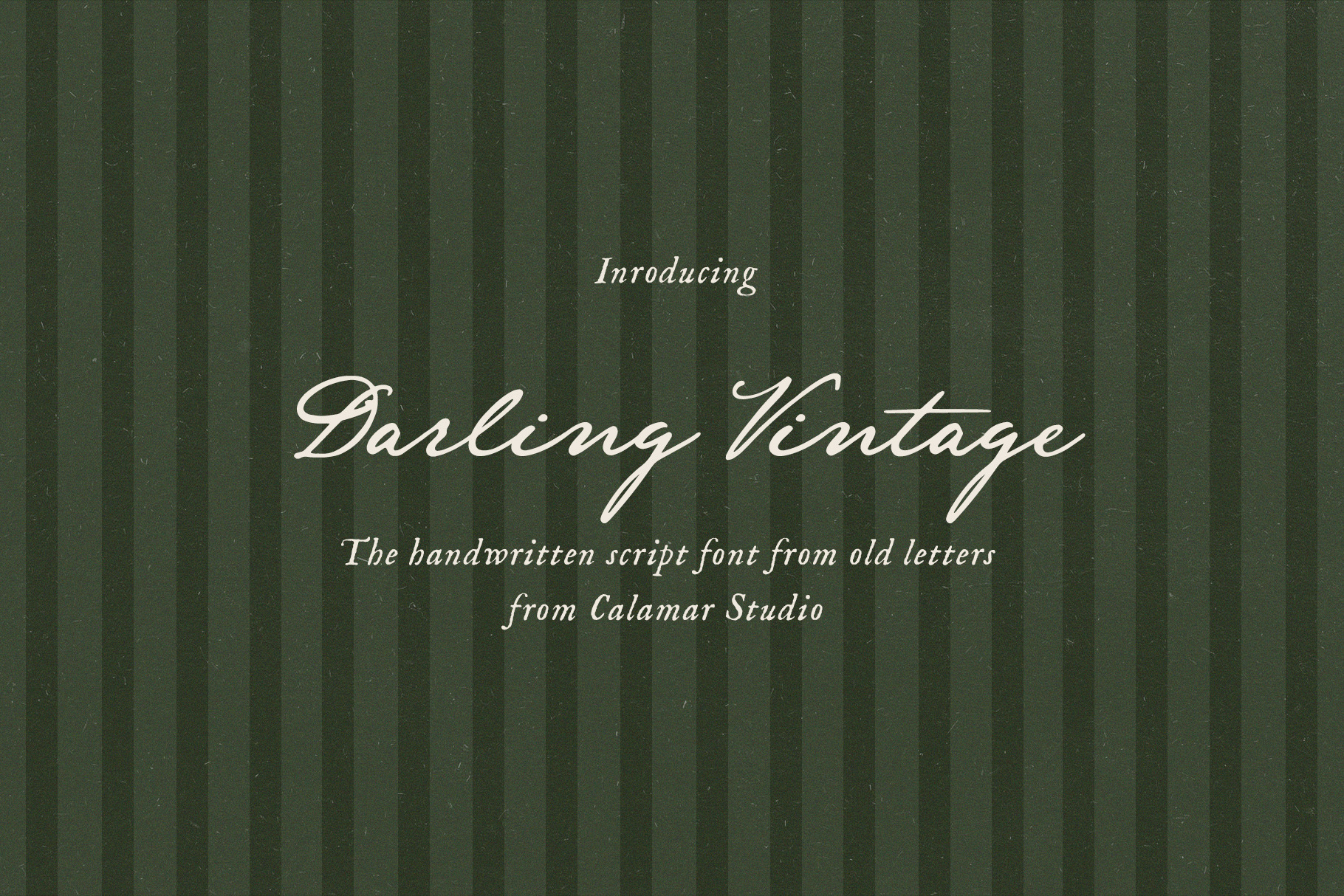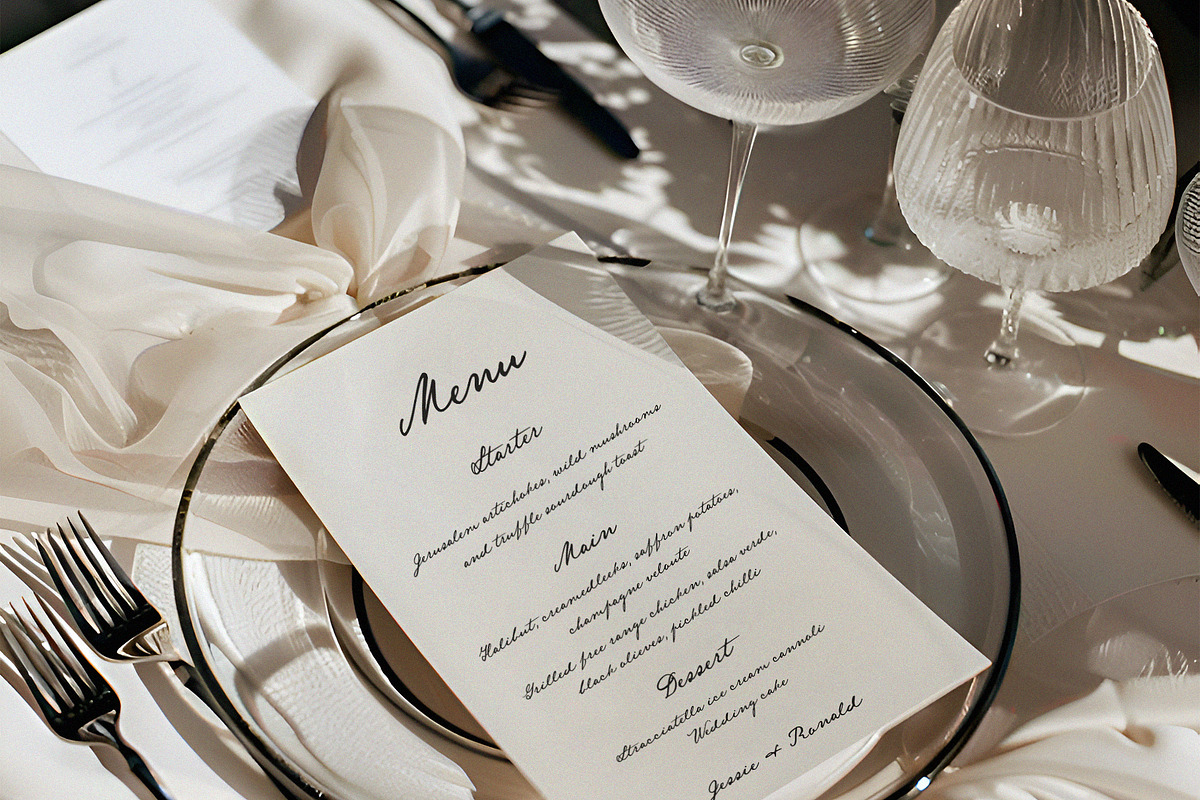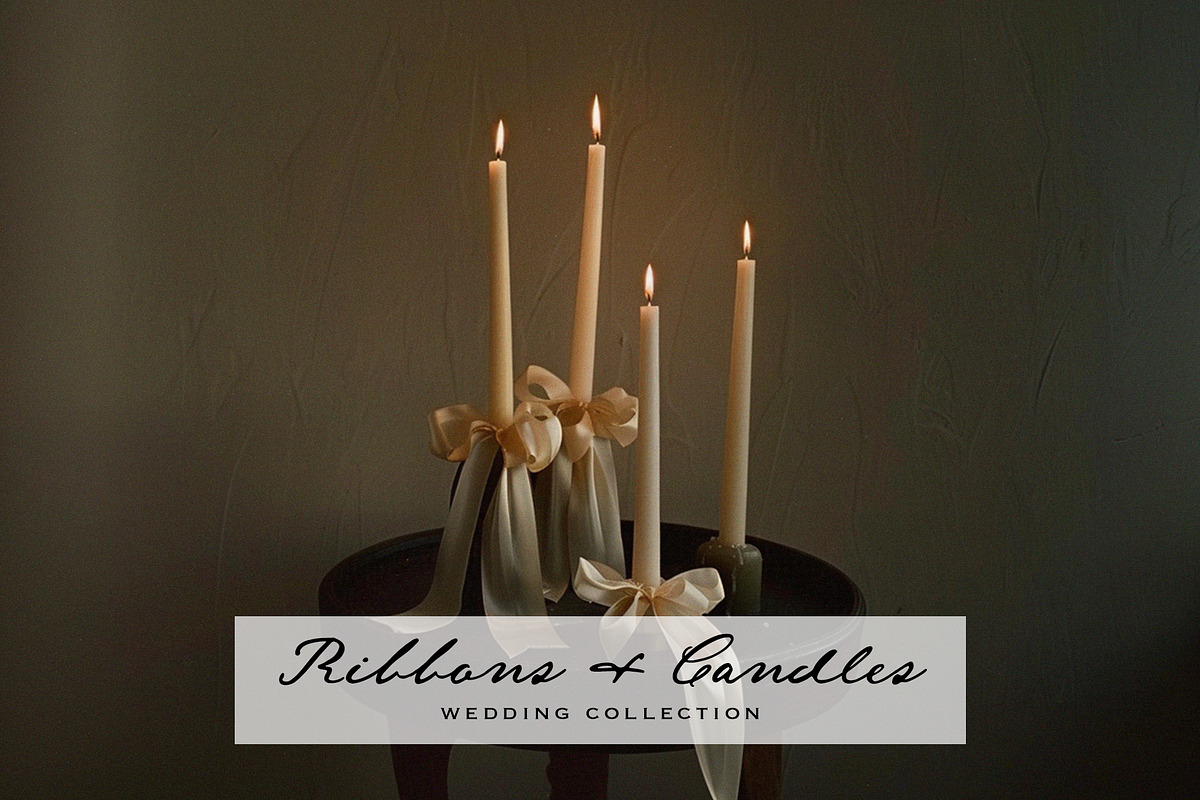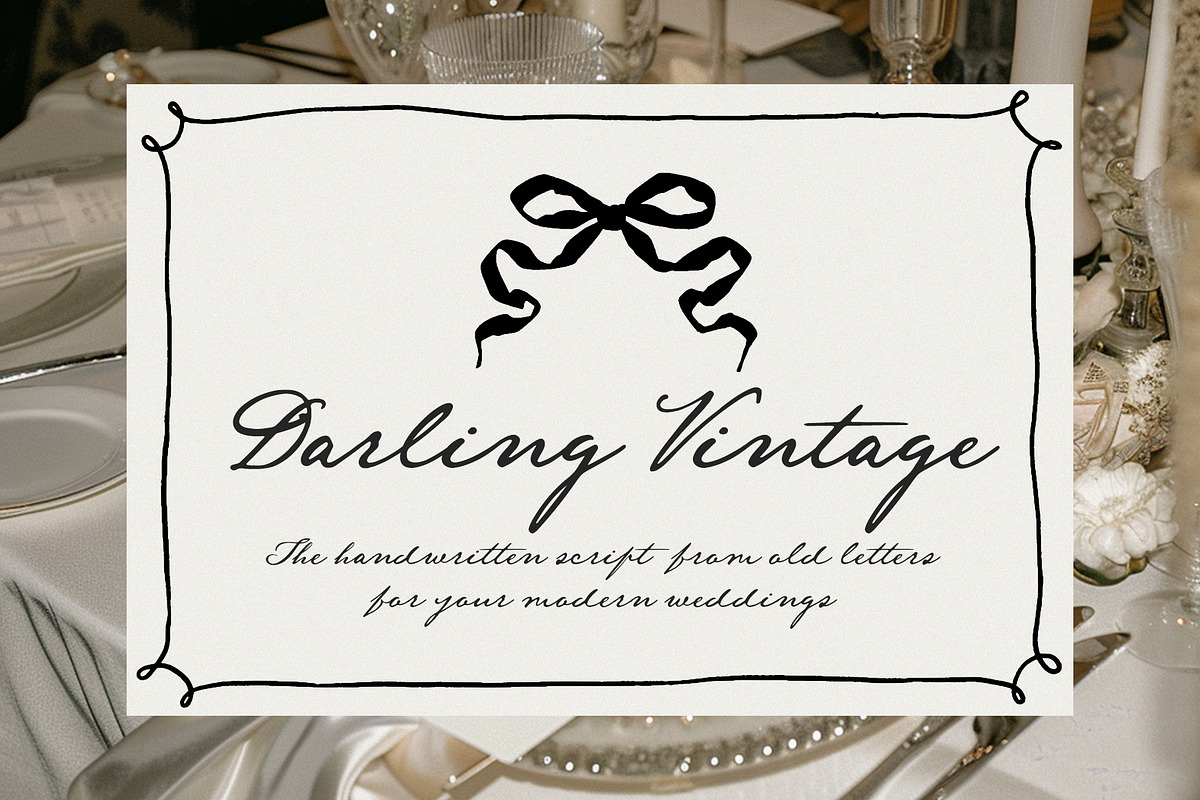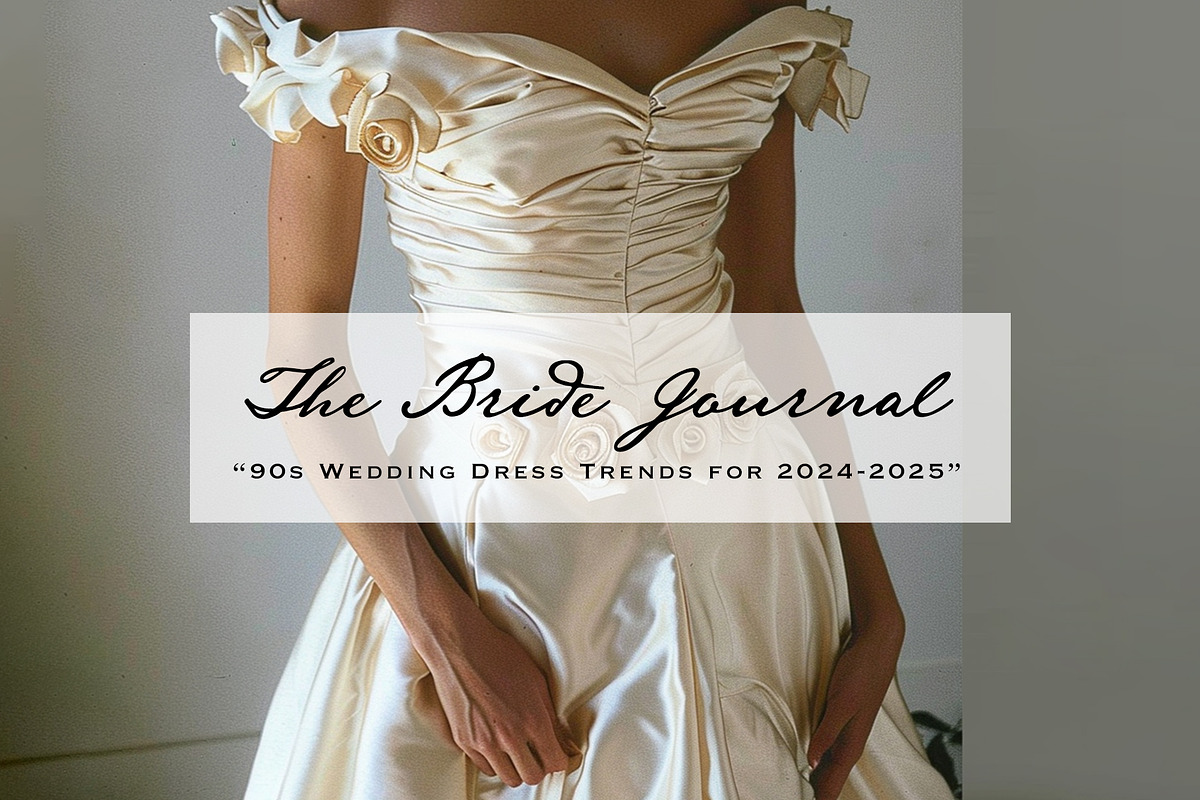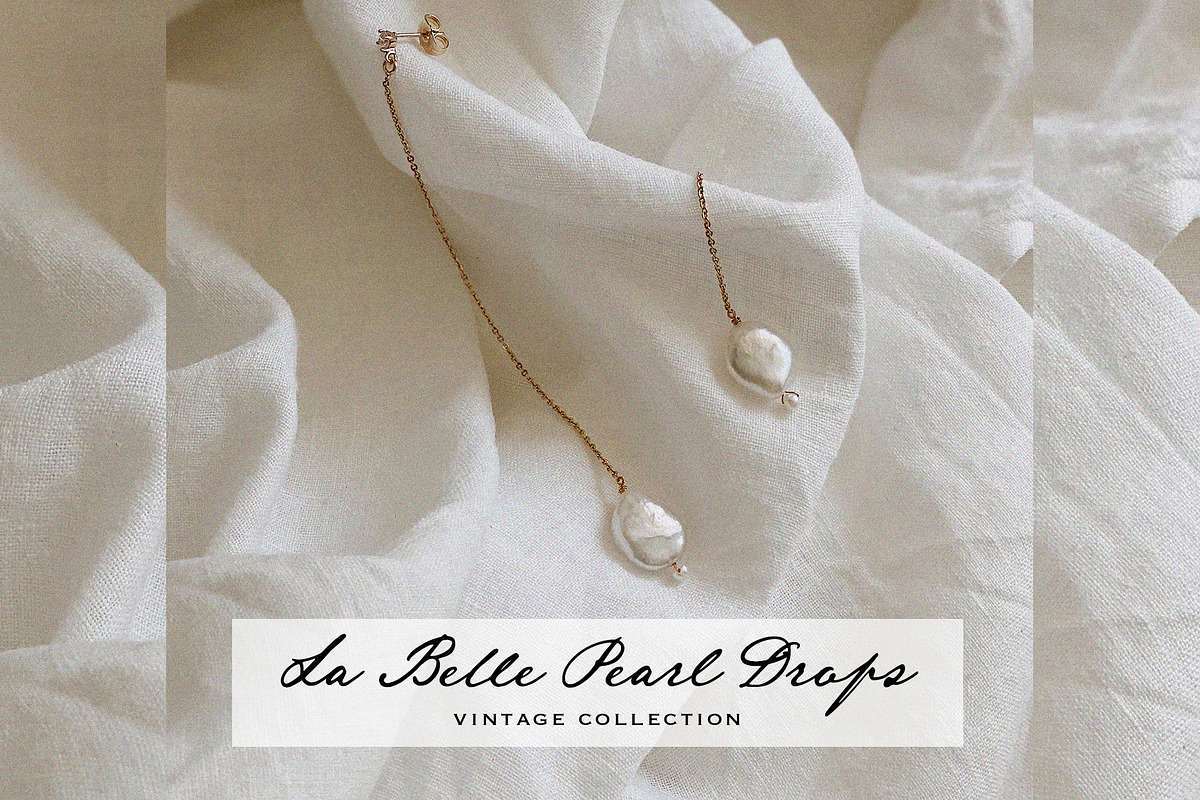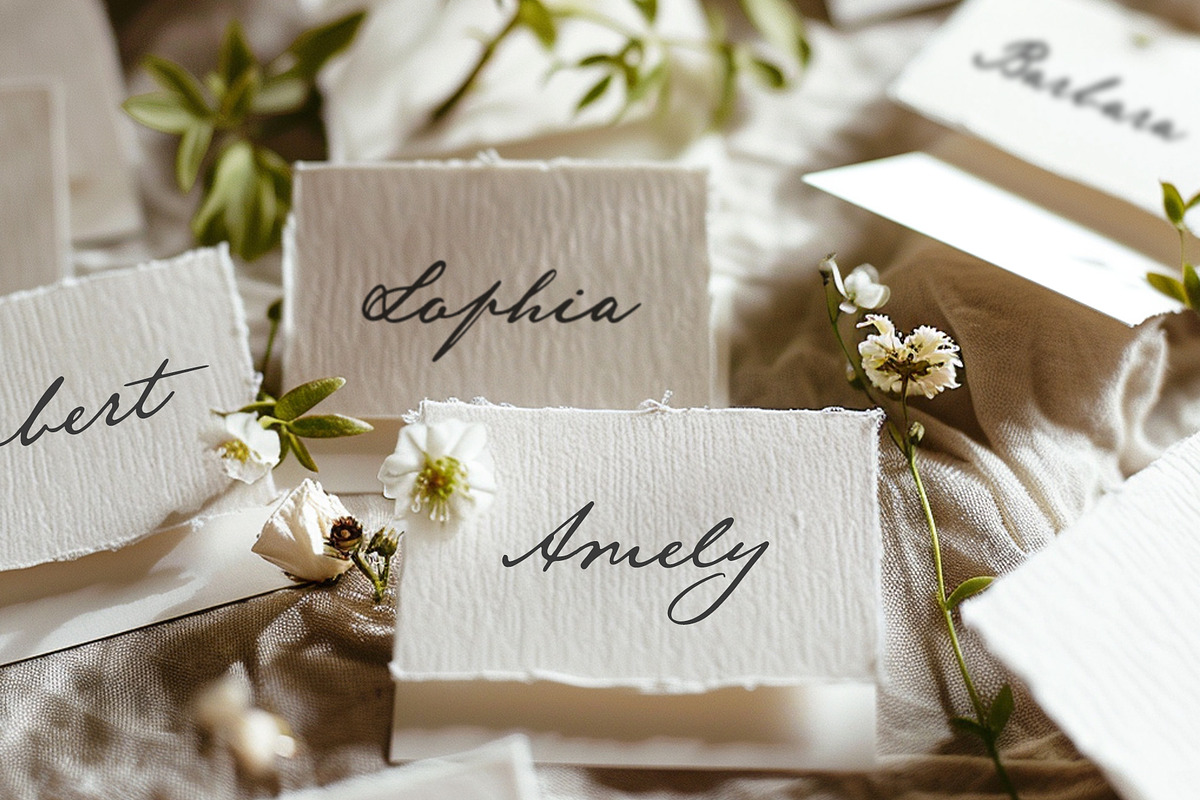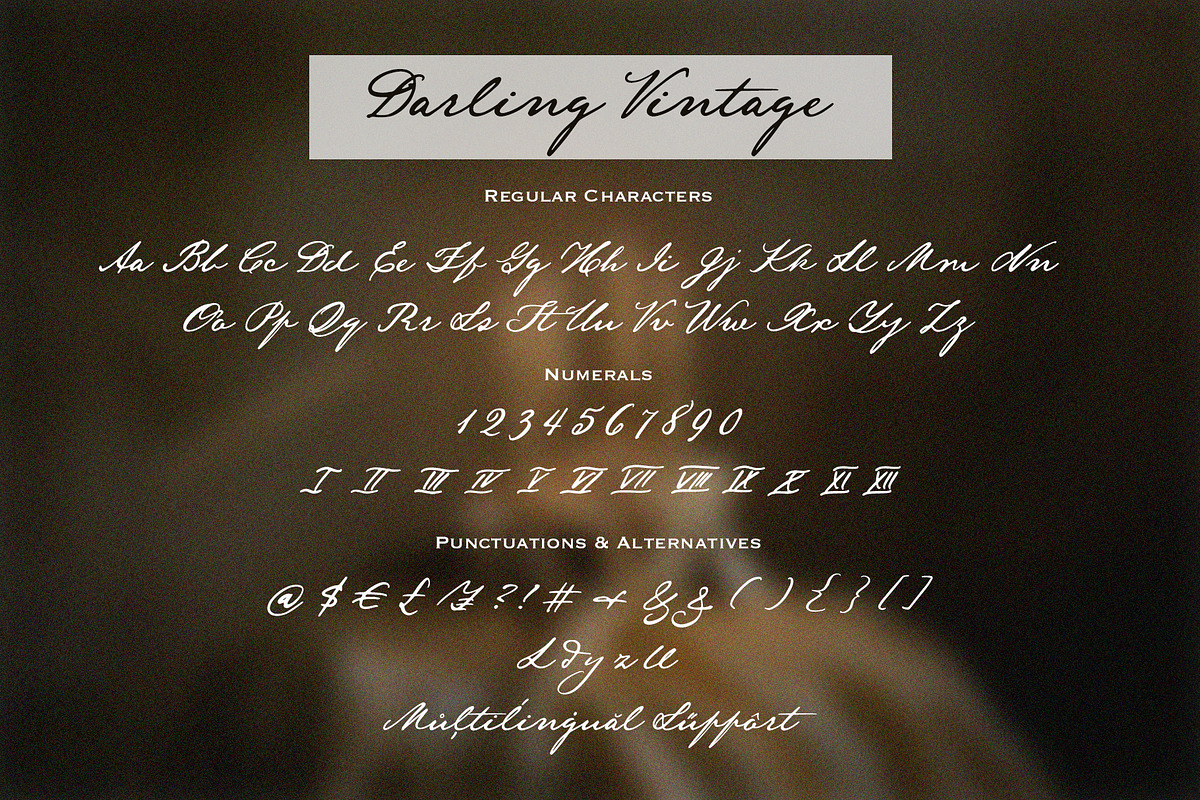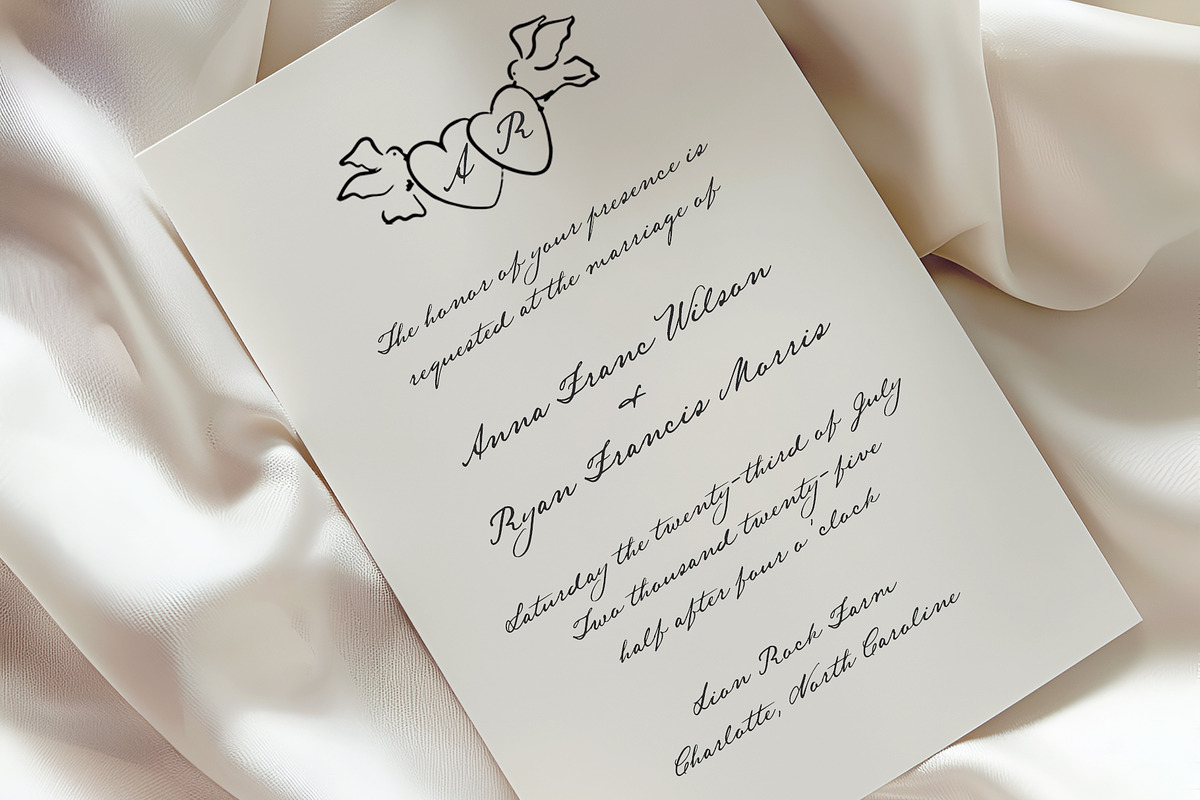
Darling Vintage Handwritten Font
Meet my new calligraphy script Darling Vintage inspired by Jane Austin's old manuscripts. It is a fairly plain, legible script you might see on a many old letters or other handwritten documents. But I tried to add to this cursive a bit more calligraphy look to convey the romantic old letter vibe. I think it will combine perfectly with a modern wedding stationary especially with a hand drawn invitations. Just to check my presentation to get more inspiration for your designs. This font comes with a full set of Uppercase and Lowercase Basic Characters, Numbers, Punctuation and some ligatures and alternatives. Thanks so much for checking out my shop! ~ Oksana